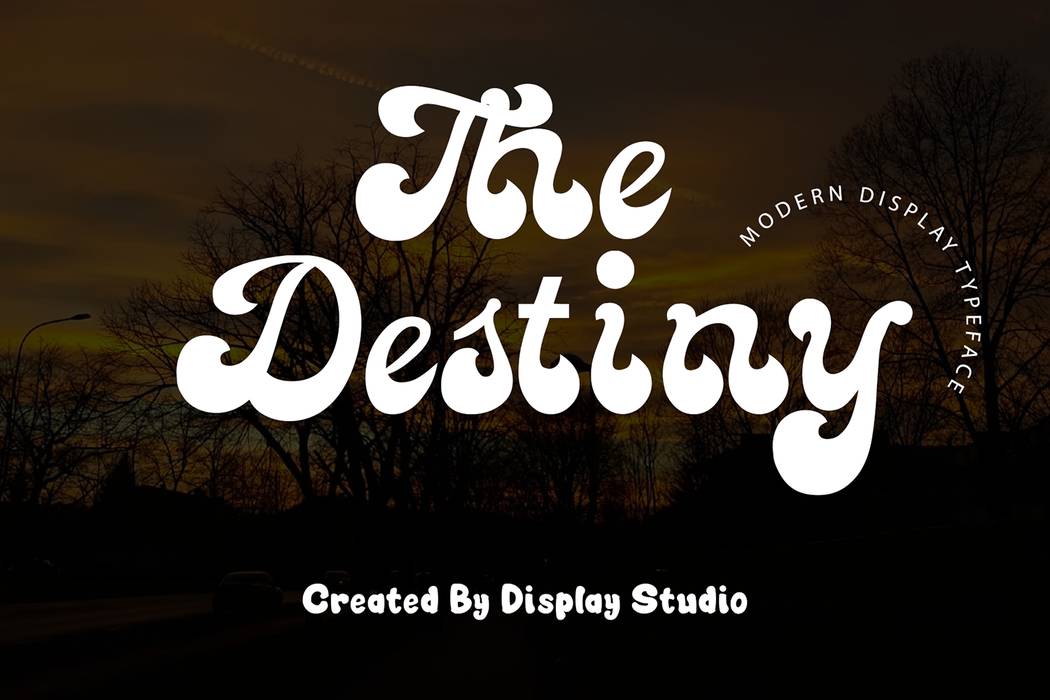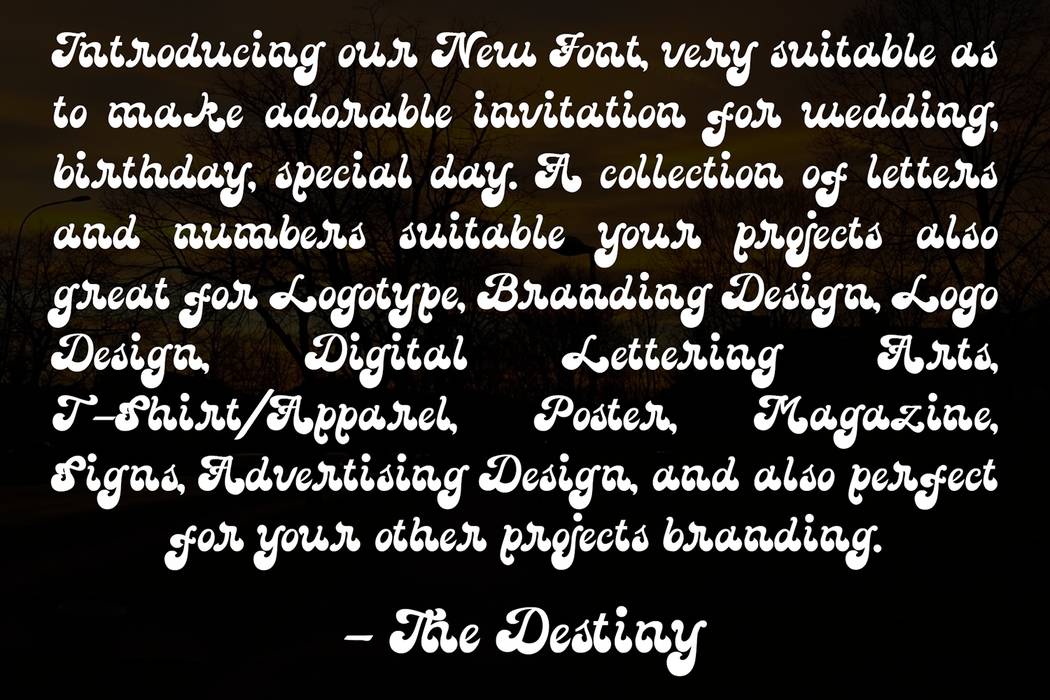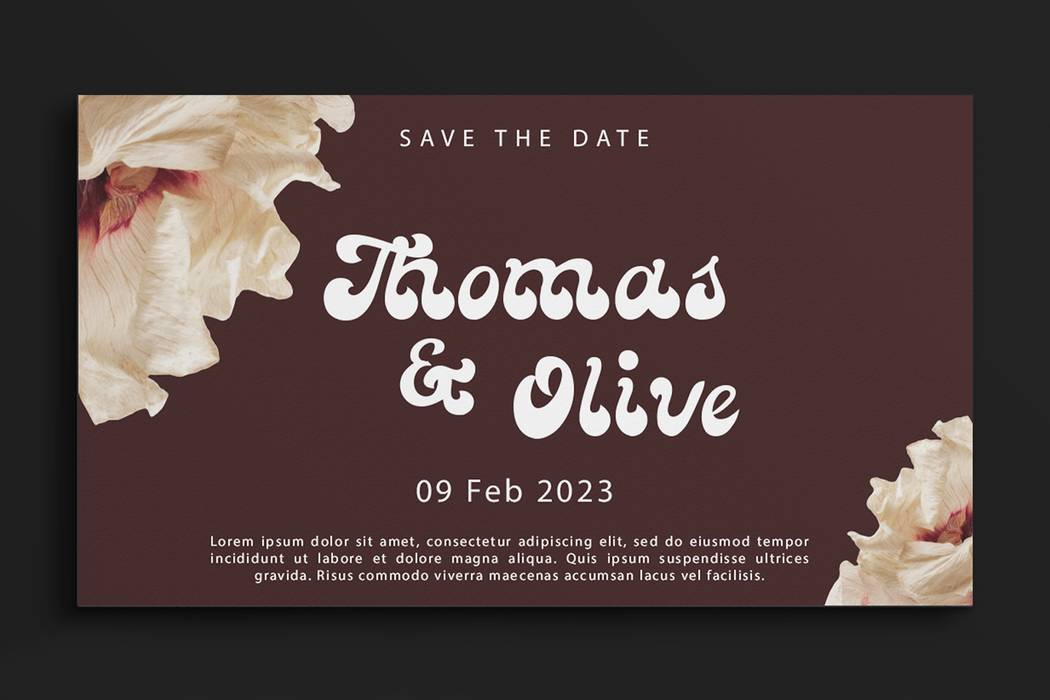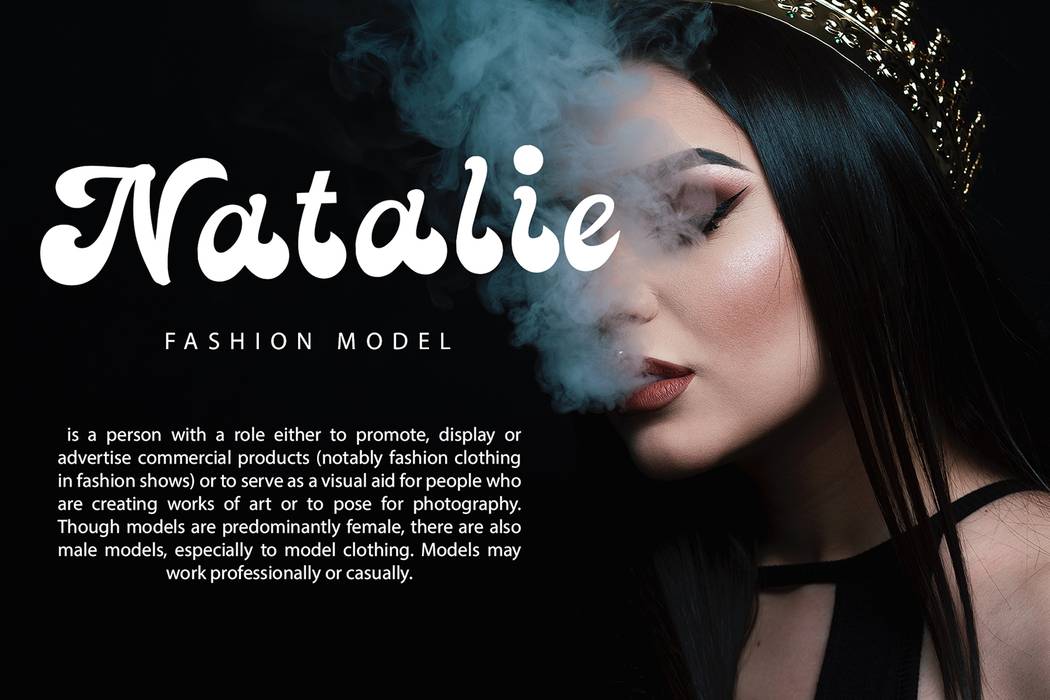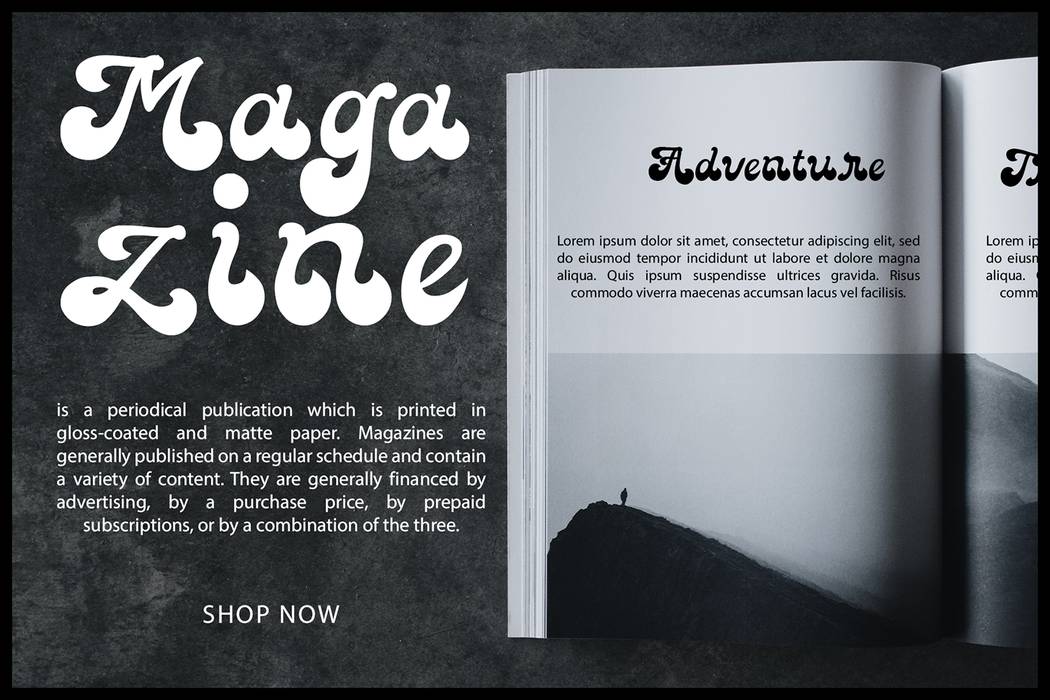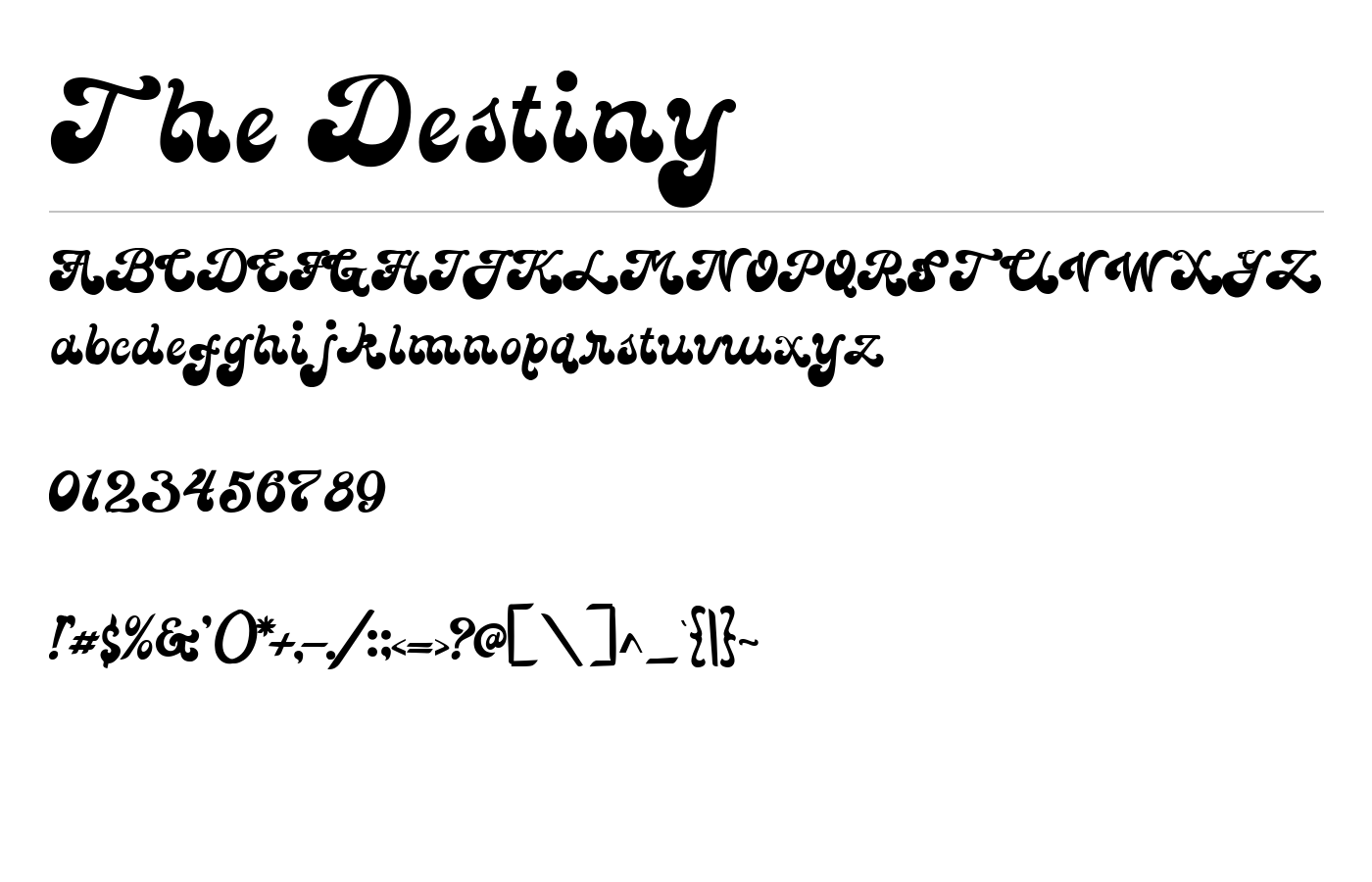
The Destiny Font is a bold, playful serif script that features thick, rounded strokes with distinctive teardrop-shaped terminals, lending it a quirky and friendly character. Its lively, slightly condensed letterforms and high contrast between thick and thin strokes make it ideal for eye-catching headlines, logos, and creative branding that aims to convey fun and personality. This font works best where a vintage yet approachable style is desired, especially in packaging, posters, and artistic projects seeking a touch of retro charm.
The Destiny Font
About The Destiny Font